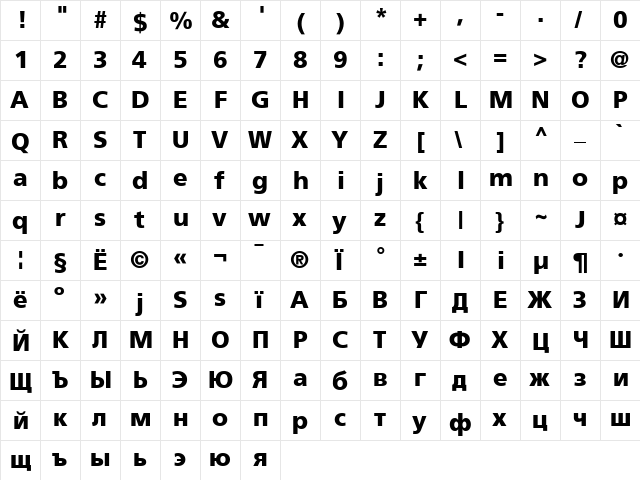
Foreigner-Bold Bold
Design Context for Foreigner-Bold Typeface
Foreigner-Bold offers clean, dependable letterforms without strong stylistic allegiance, making it a practical choice for designers who need flexibility. Its bold stroke weight gives it real presence on the page.